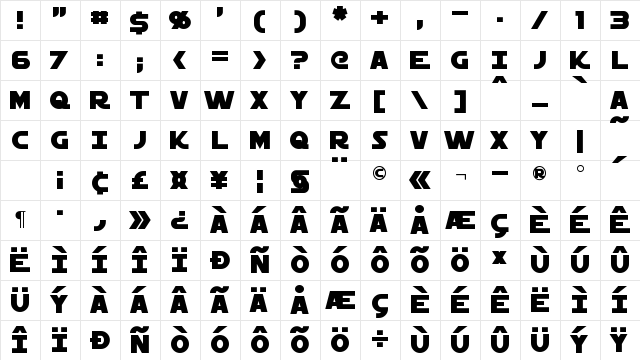
Starkiller Regular
| Designer | Neale Davidson |
Design Context for Starkiller Typeface
Starkiller is a composed and adaptable typeface that performs quietly and consistently across a wide range of design contexts.